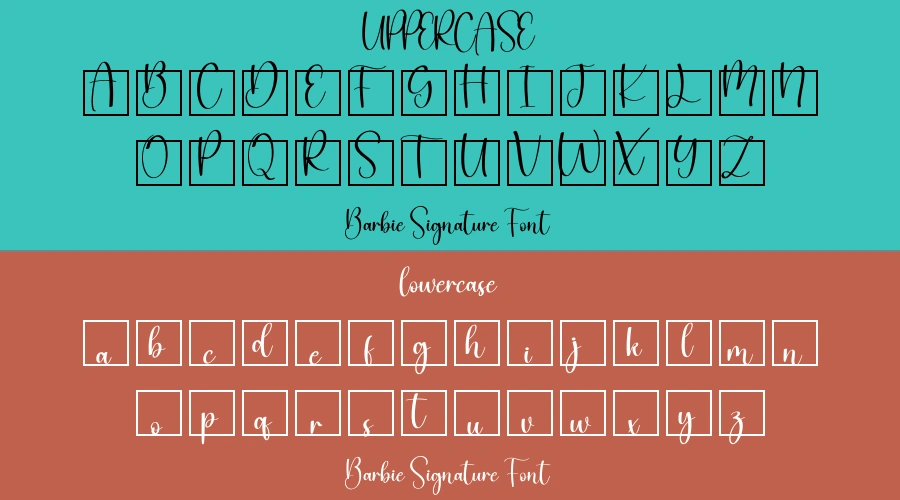
About Barbie Signature Font
When typographic excellence matters most, Barbie Signature Font delivers through its thoughtful blend of measured spacing and adaptability. Specially crafted for advertising campaigns, it offers the reliability and practical utility required for sophisticated design work. Every detail serves a purpose.
The character set showcases thoughtful details like hairline details alongside functional lining figures. This proves especially valuable in ceremonial texts, where symbol integration directly influences results. Particular attention was paid to proportion and cultural relevance during development.